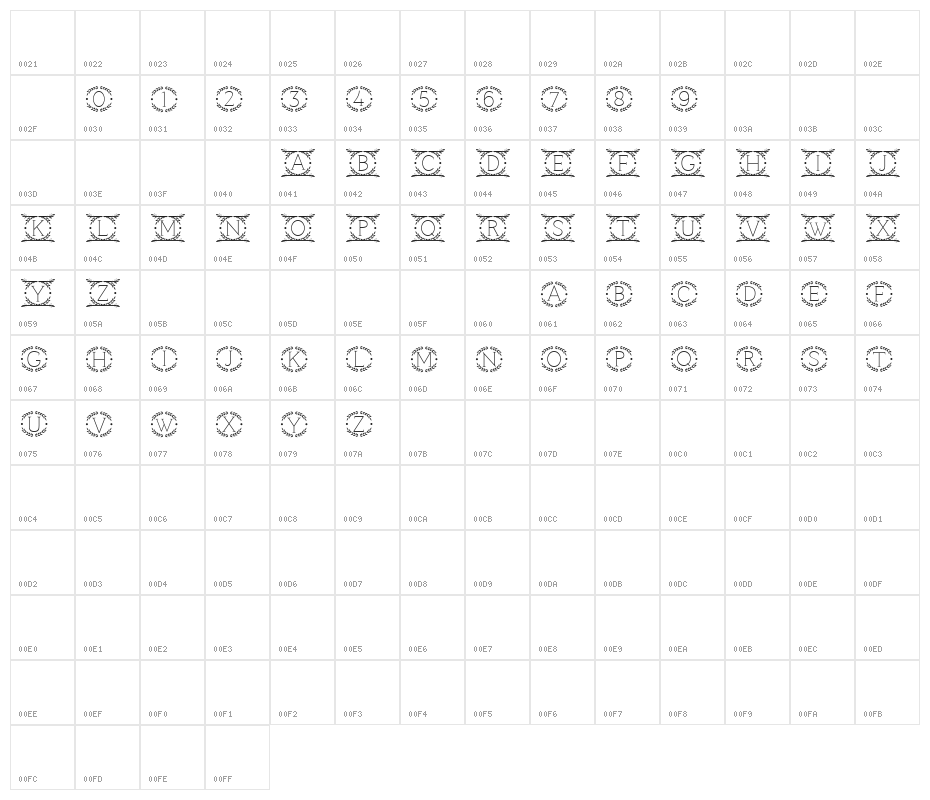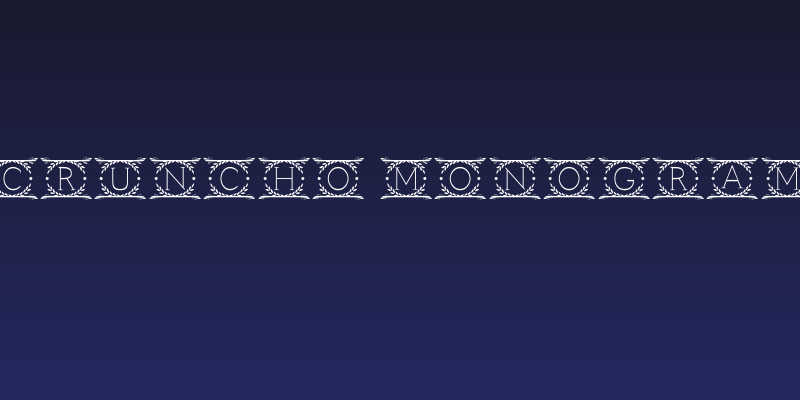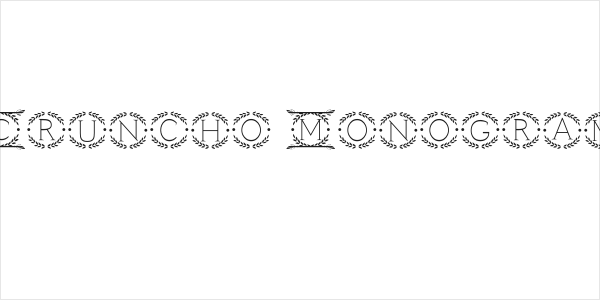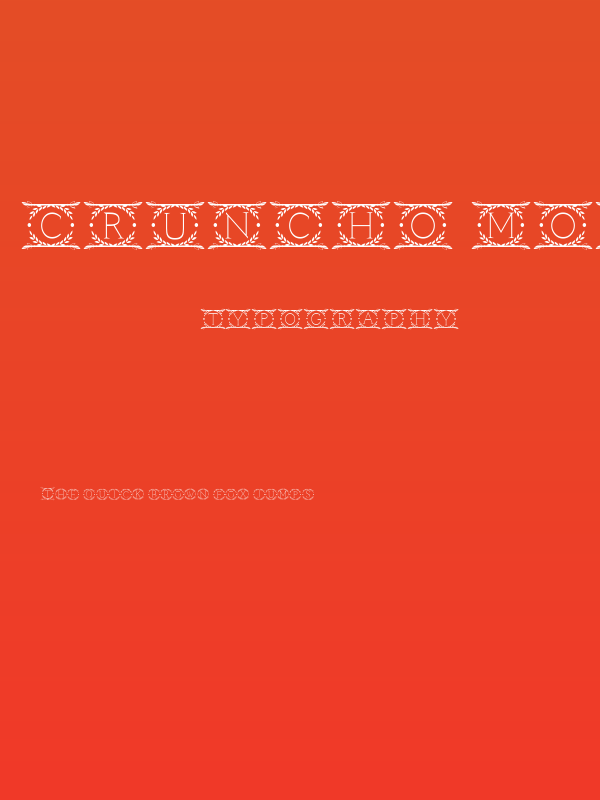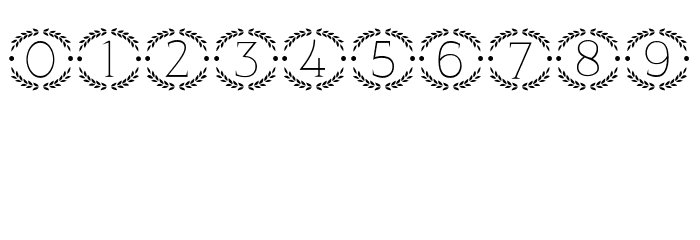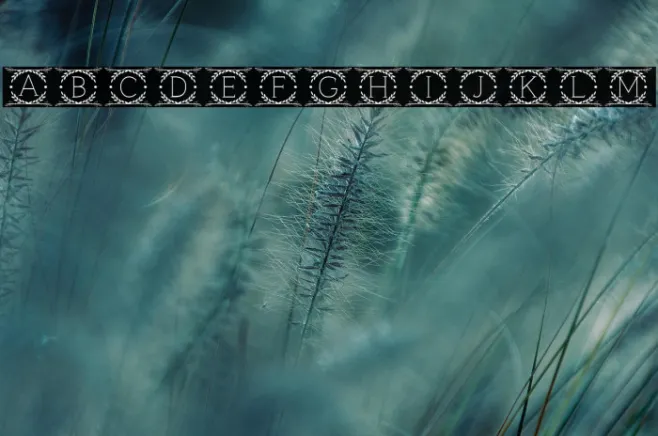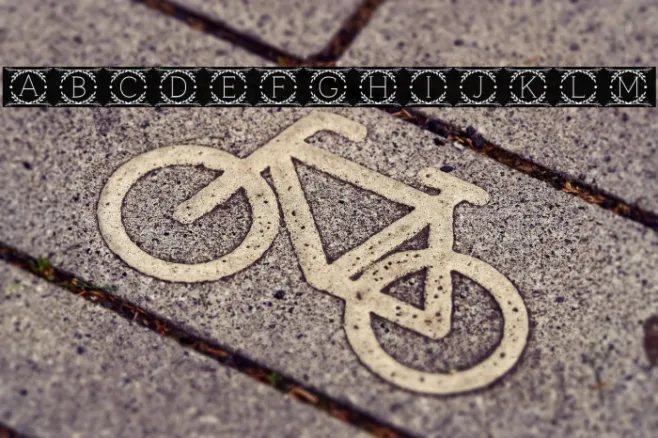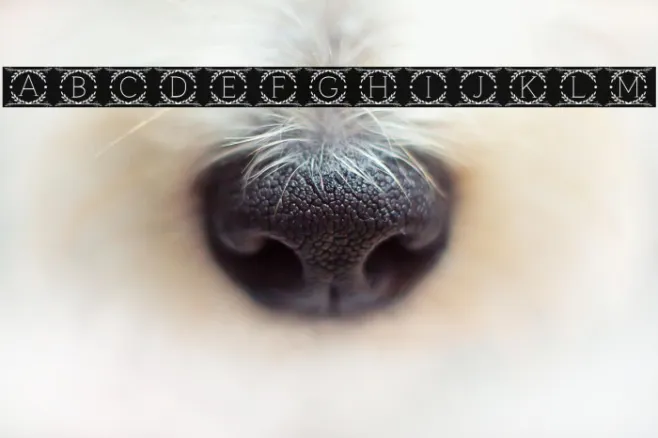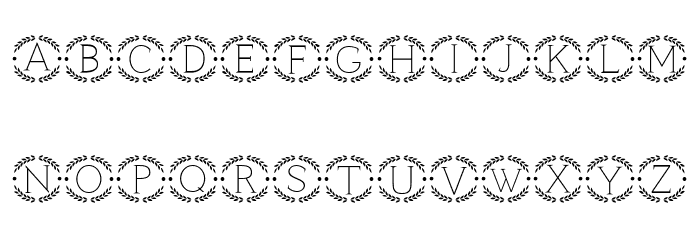
Cruncho Monogram Font
Cruncho Monogram Description
This font features a decorative monogram style, with each character encased in a circular border adorned with intricate leaf patterns. The letters are uppercase and exhibit a classic serif design, providing a sense of elegance and tradition. The numbers follow the same stylistic approach, maintaining consistency throughout the set. The overall appearance is sophisticated, making it ideal for formal applications. The decorative elements add a touch of artistry, enhancing the visual appeal and making it suitable for special occasions or branding that requires a refined touch.